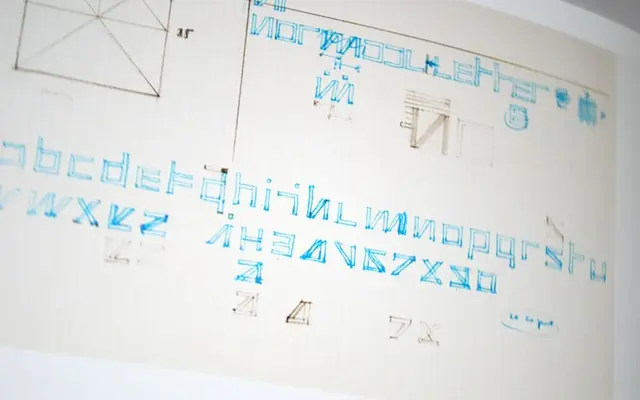
New Alphabet
The Foundry Types · Wim Crouwel · 1967
Wim Crouwel's 1967 theoretical typeface, built entirely from horizontals, verticals and 45-degree angles in response to early cathode ray tube phototypesetting technology.
Designed within the strict constraints of a 5-by-9 pixel grid, the letterforms abandon conventional distinction between upper and lowercase, using a bar above a letter to signal a capital instead. Crouwel never intended the design for practical use; it was a provocation and a point of departure, intended to stimulate debate about how letterforms might adapt to electronic reproduction rather than fight against it. The family has been realised as four styles and is licensed exclusively through Monotype.
Conceived as a radical theoretical exercise constrained entirely to horizontals, verticals and 45-degree angles derived from cathode ray tube dot-matrix technology, placing it firmly in the experimental display category with no conventional typographic antecedent.